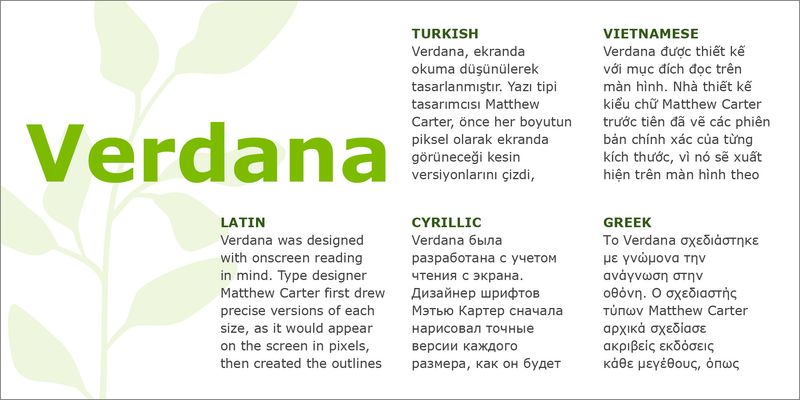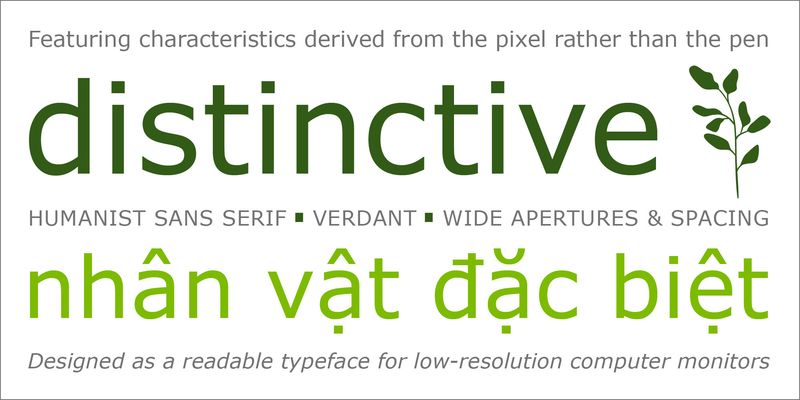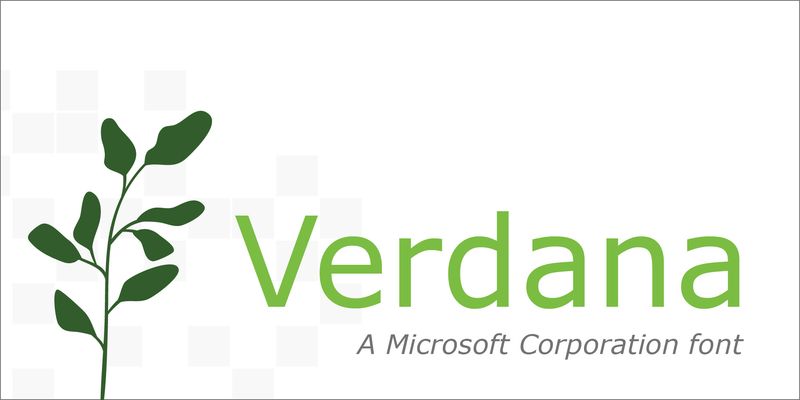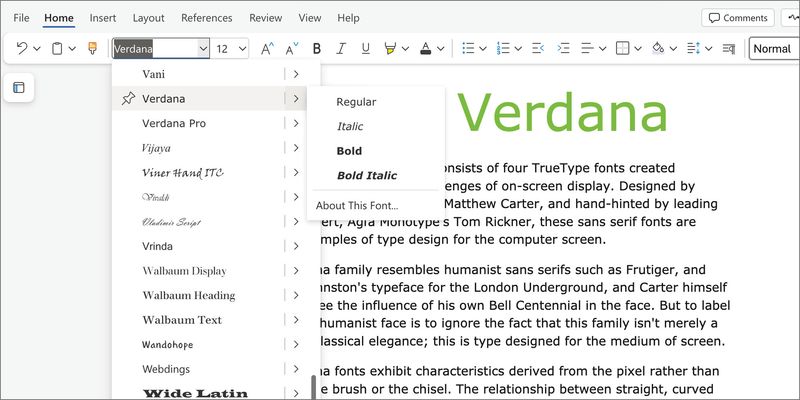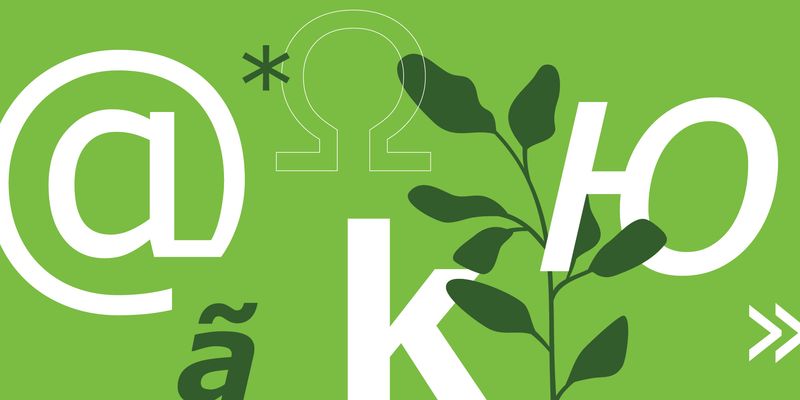
Verdana is a readable sans serif typeface that can be found all over the World Wide Web. It was designed with onscreen reading in mind. Verdana’s no-nonsense look and clear letter shapes make it a good typeface for body text, especially at small sizes, where its large lowercase letters with ample spacing between them make it easy to read. Verdana is a good choice for presentations and web pages, as well as for flyers, brochures, correspondence, and reports. Try combining Verdana for body text with Tahoma for headlines.
Type designer Matthew Carter designed Verdana for Microsoft in 1996 as a readable typeface for low-resolution computer monitors. He first drew precise versions of each size, as it would appear on the screen in pixels, then created the outlines that would describe the font; then typographic engineer Tom Rickner applied the computer code that would render each size correctly.
Verdana has two weights, Regular and Bold, each with its accompanying oblique italic. The expanded Verdana Pro family has three additional weights, as well as narrow Condensed versions of each weight, with italics.